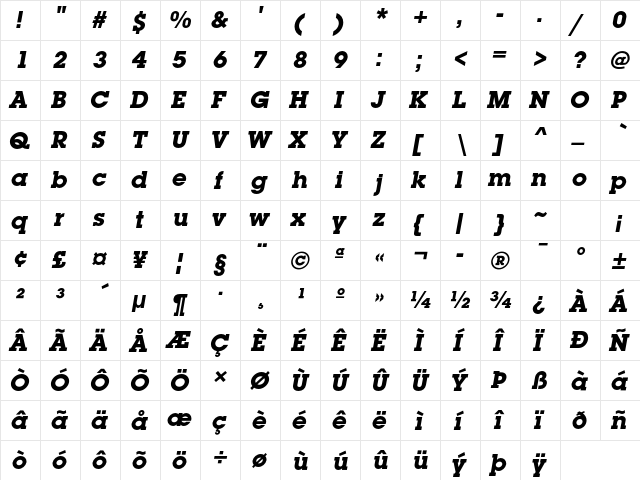
ITC Lubalin Graph Std Bold Oblique Font Preview
| Designer | Herb Lubalin |
Design Context for ITC Lubalin Graph Std Typeface
ITC Lubalin Graph Std is a composed and adaptable typeface that performs quietly and consistently across a wide range of design contexts. The slanted form adds forward momentum and visual energy. The heavy weight commands attention and anchors typographic hierarchies.
Pro Tip: Try ITC Lubalin Graph Std for annotation and caption copy alongside an upright companion — the contrast in angle creates a dynamic but ordered typographic system.